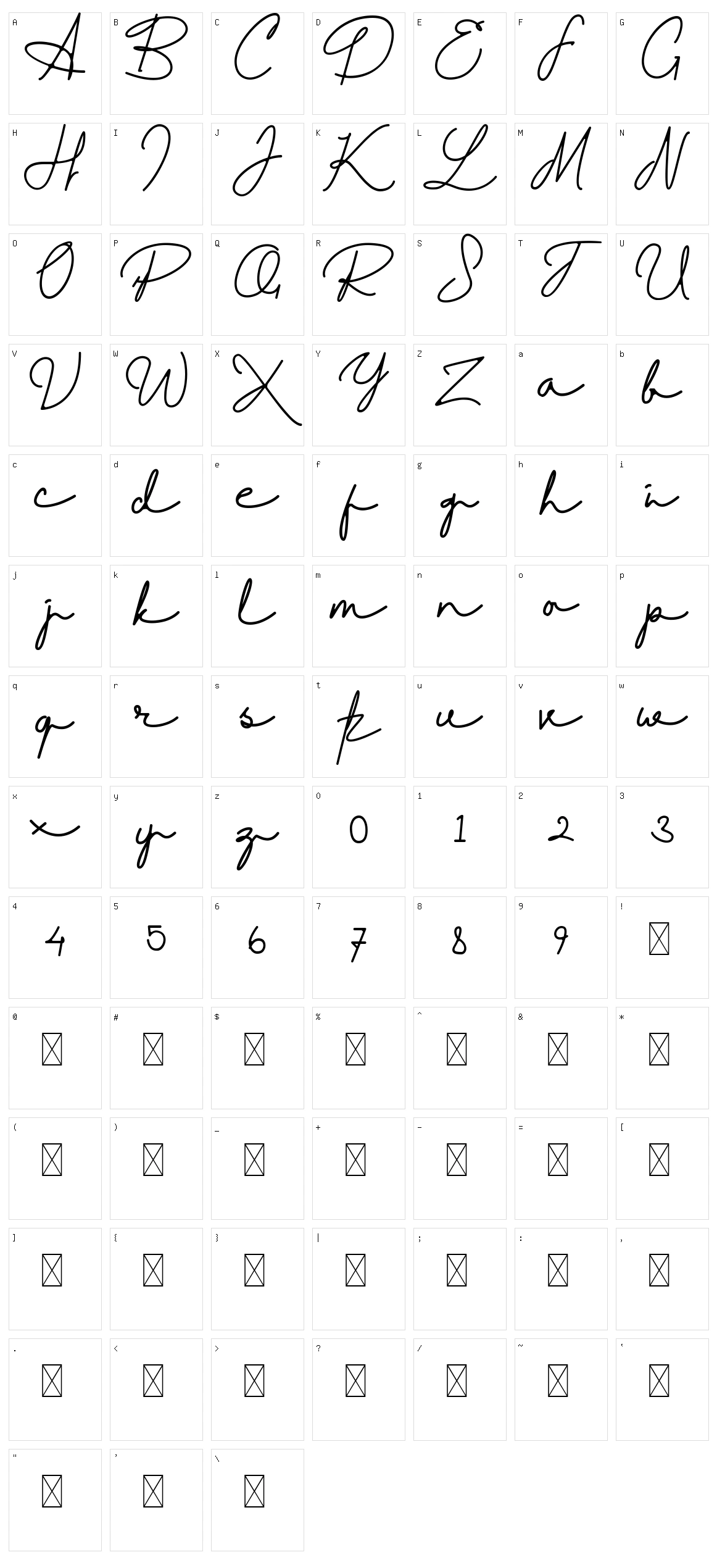
The free font Rantca is carefully designed by Skala Studio, showcasing a thoughtful balance of creativity and usability and falls under the Script font style. When you download the ZIP file, it contains only 22.98 KB of font files, making it lightweight and quick to download. Please review the license details below to understand permitted usage and distribution rights. If license information is not available, we recommend using this font for personal projects only or contacting the author directly for commercial usage permissions.